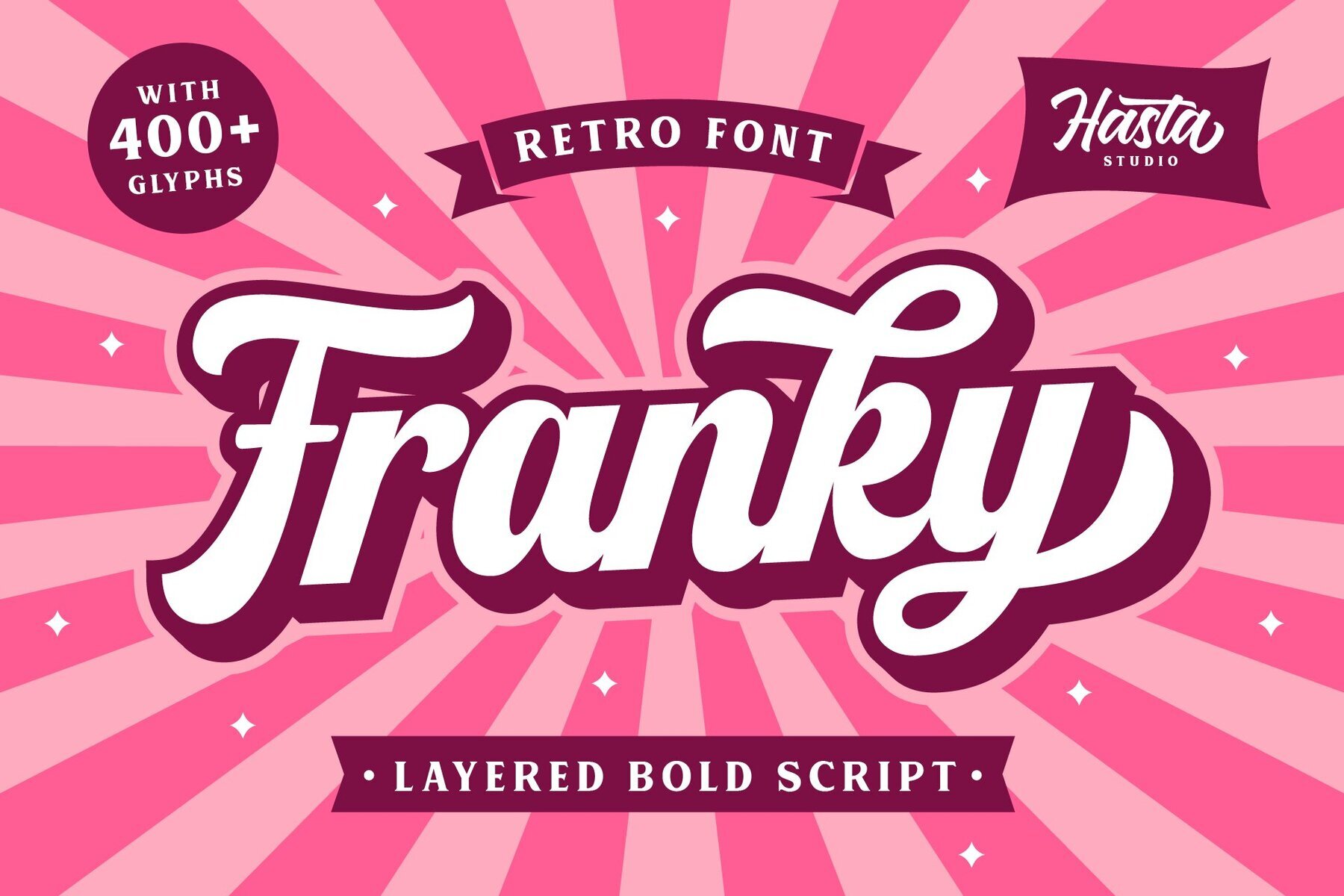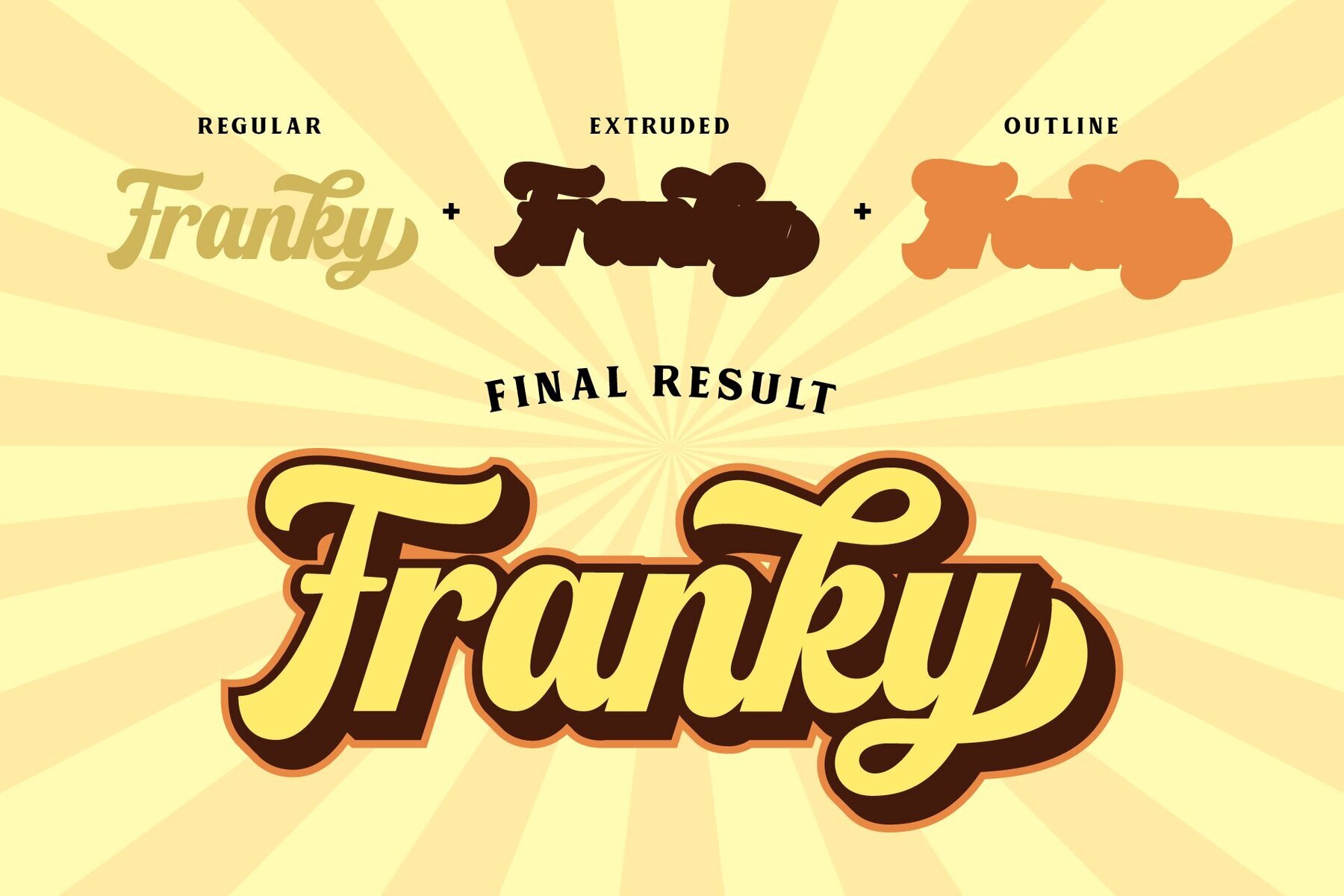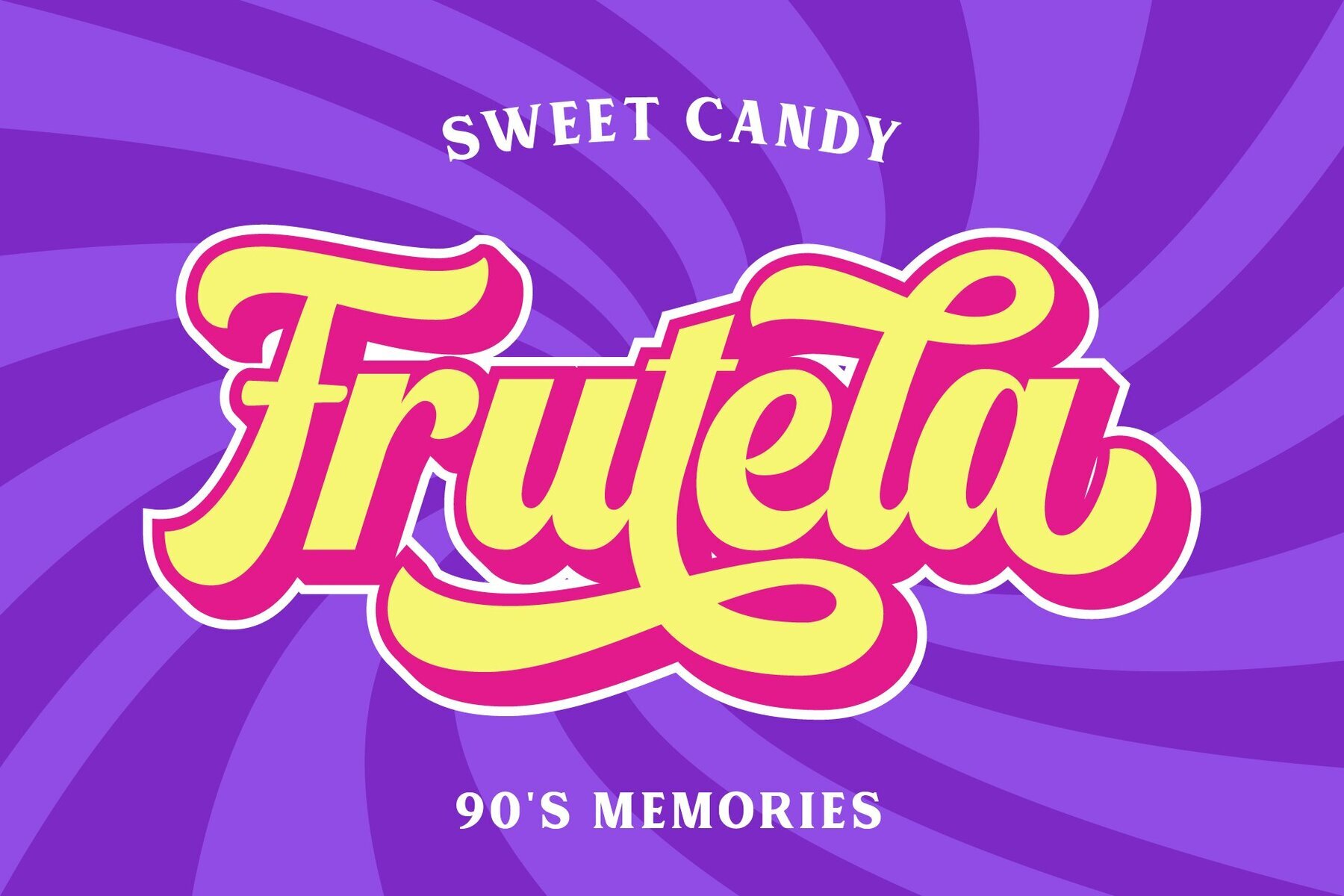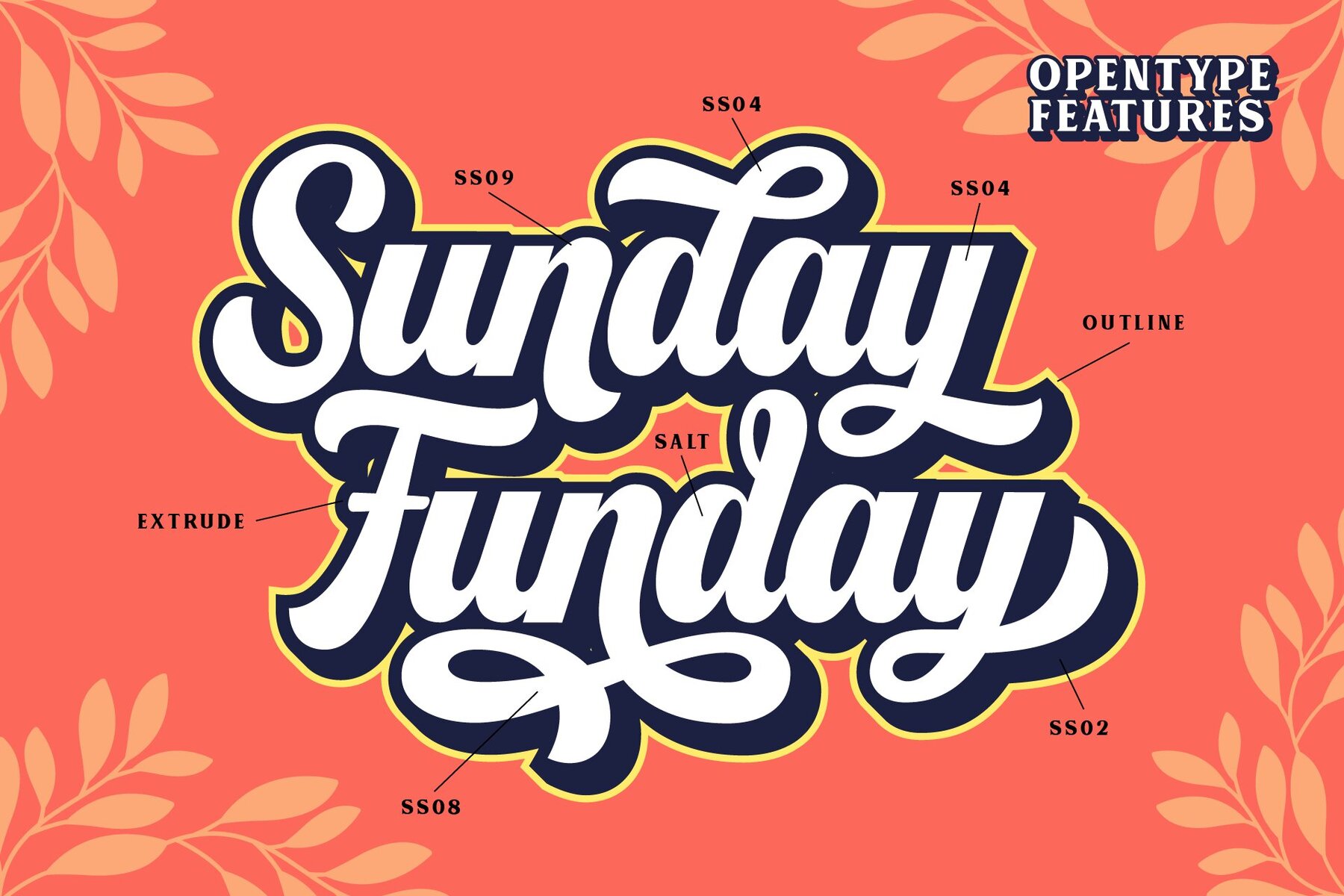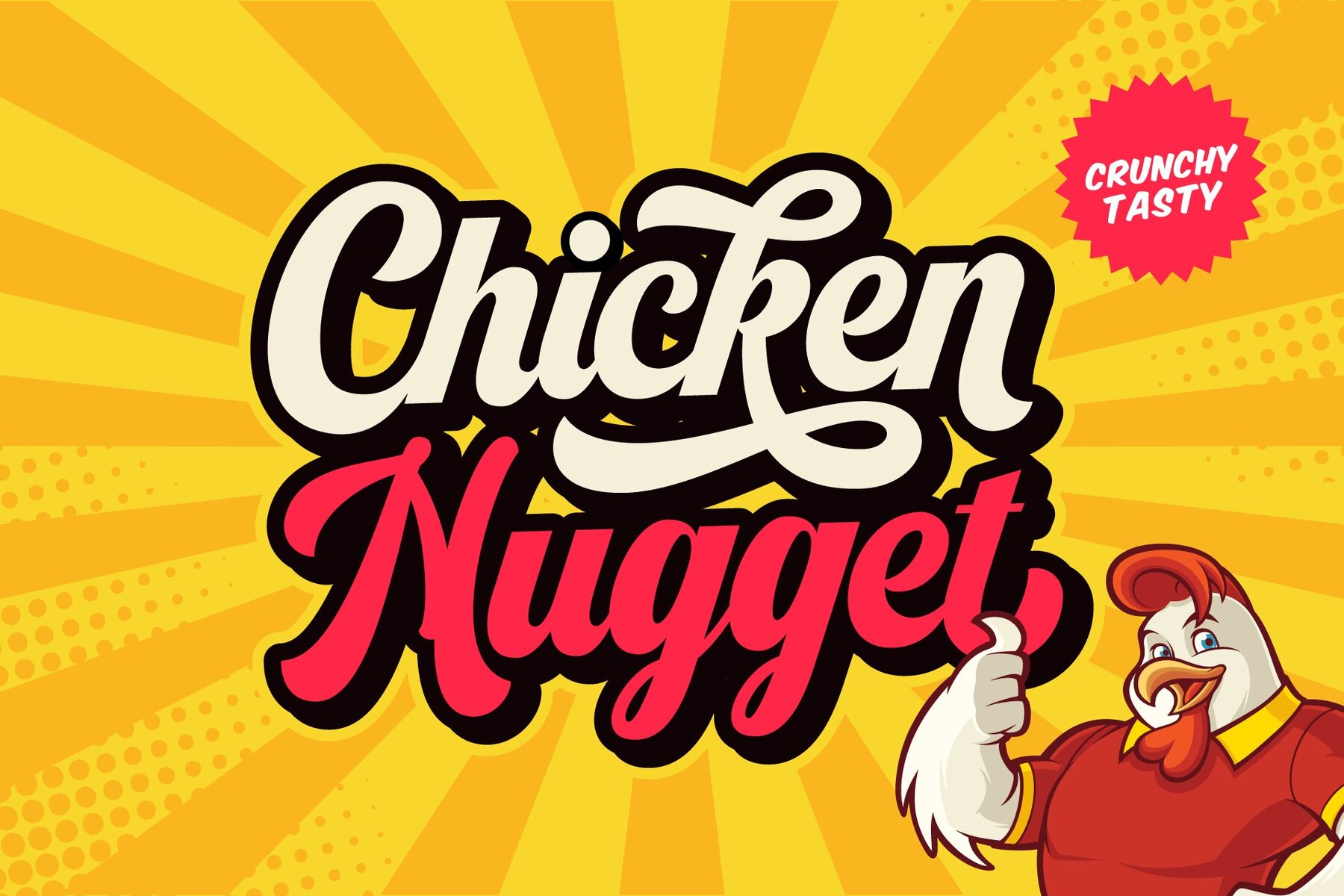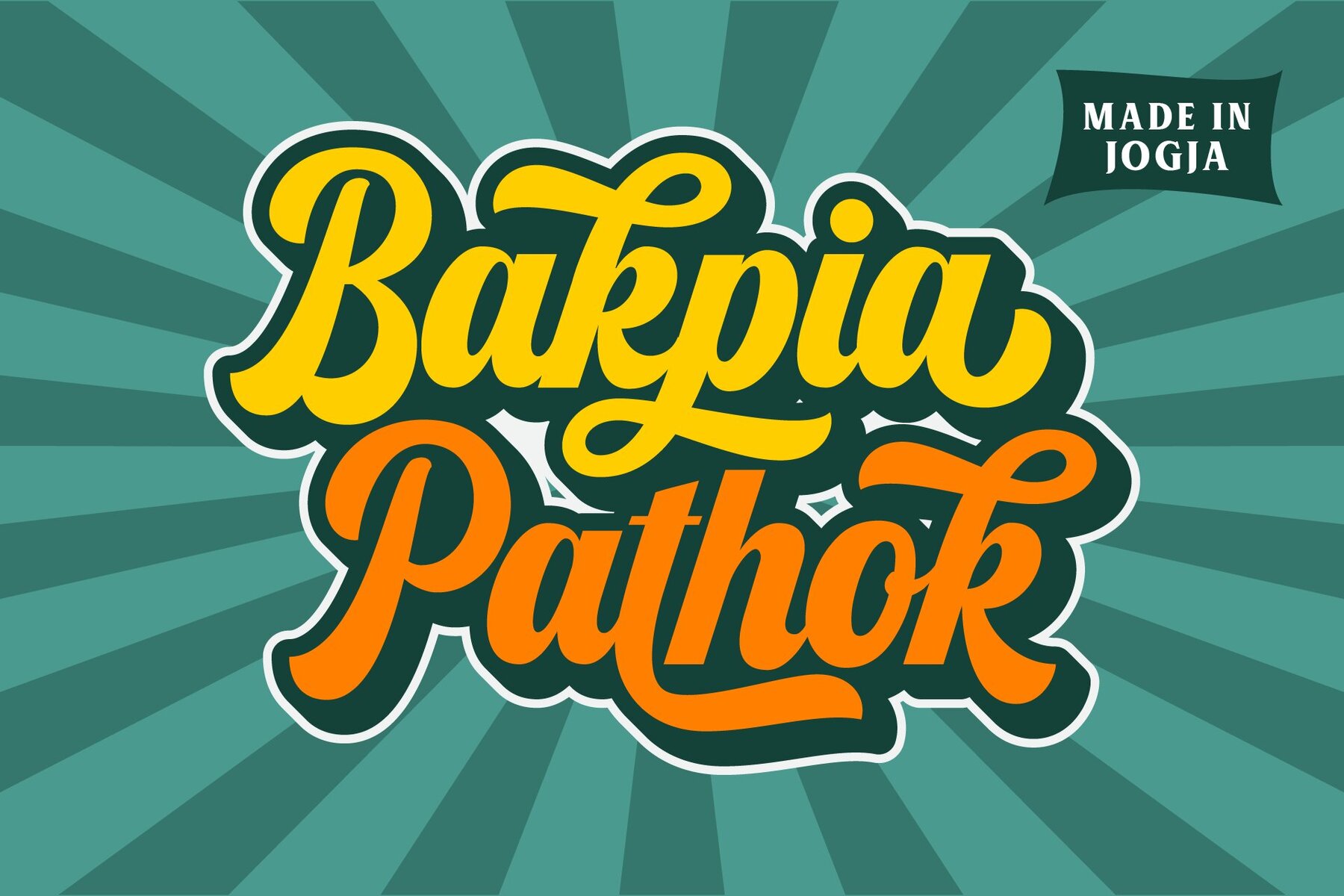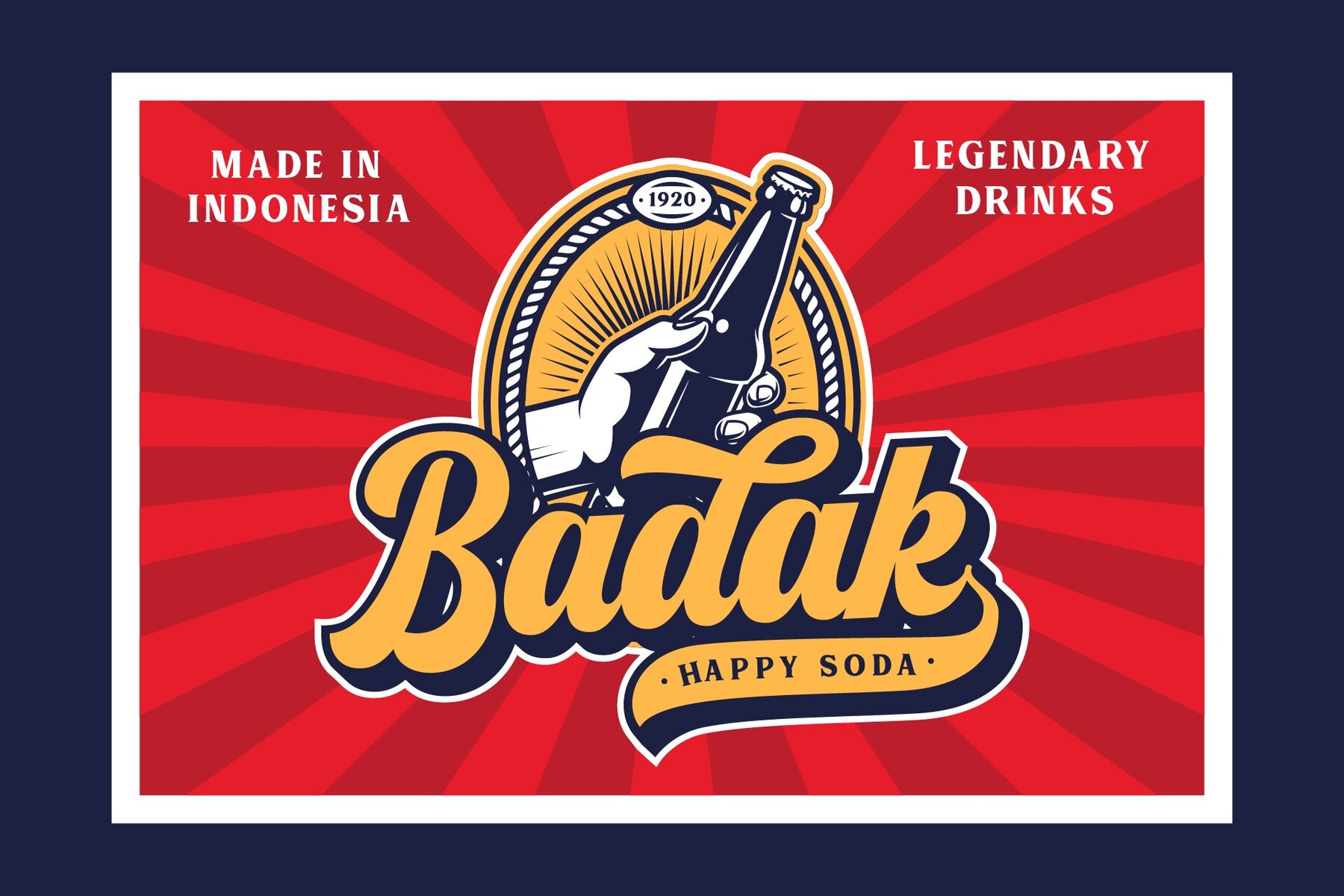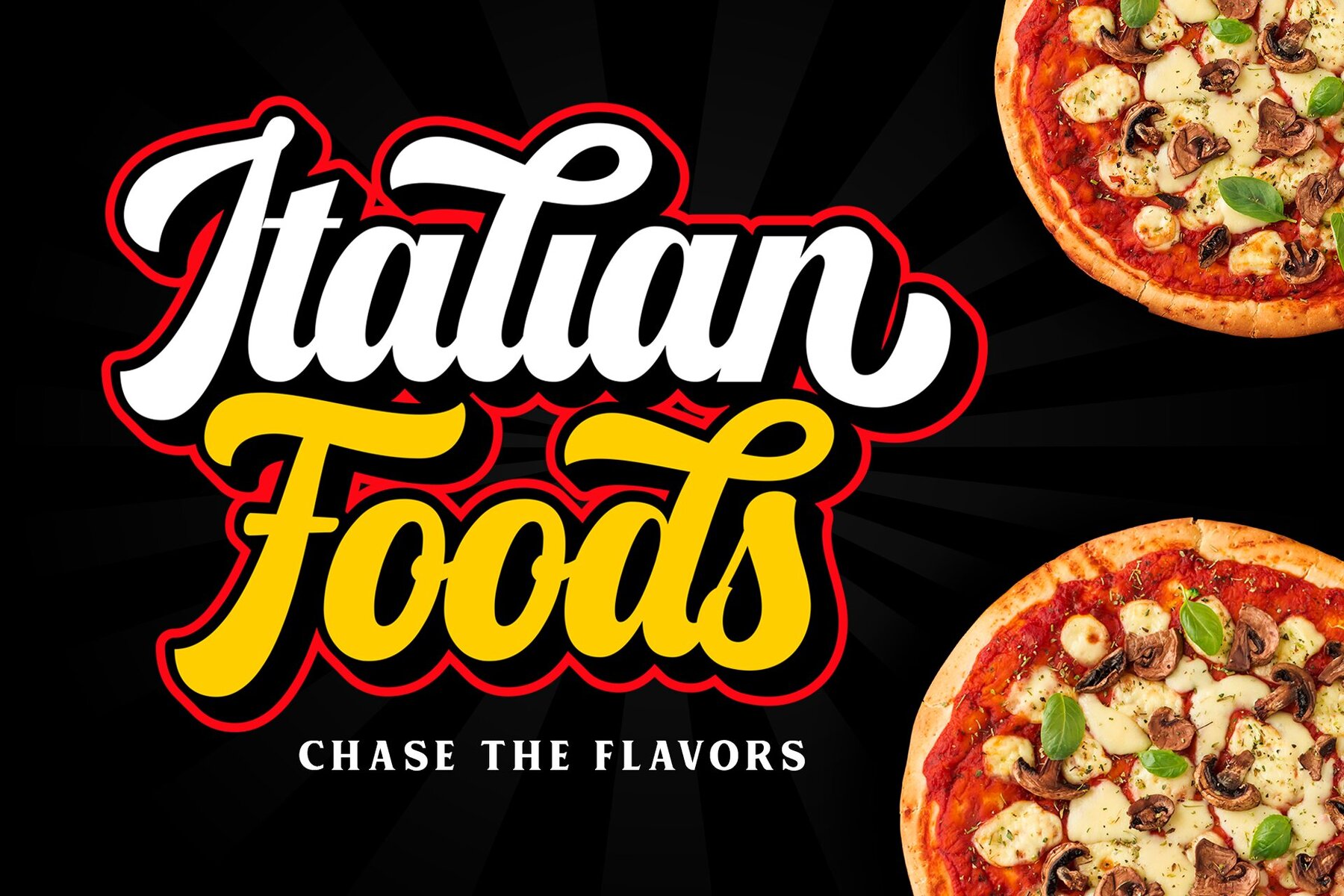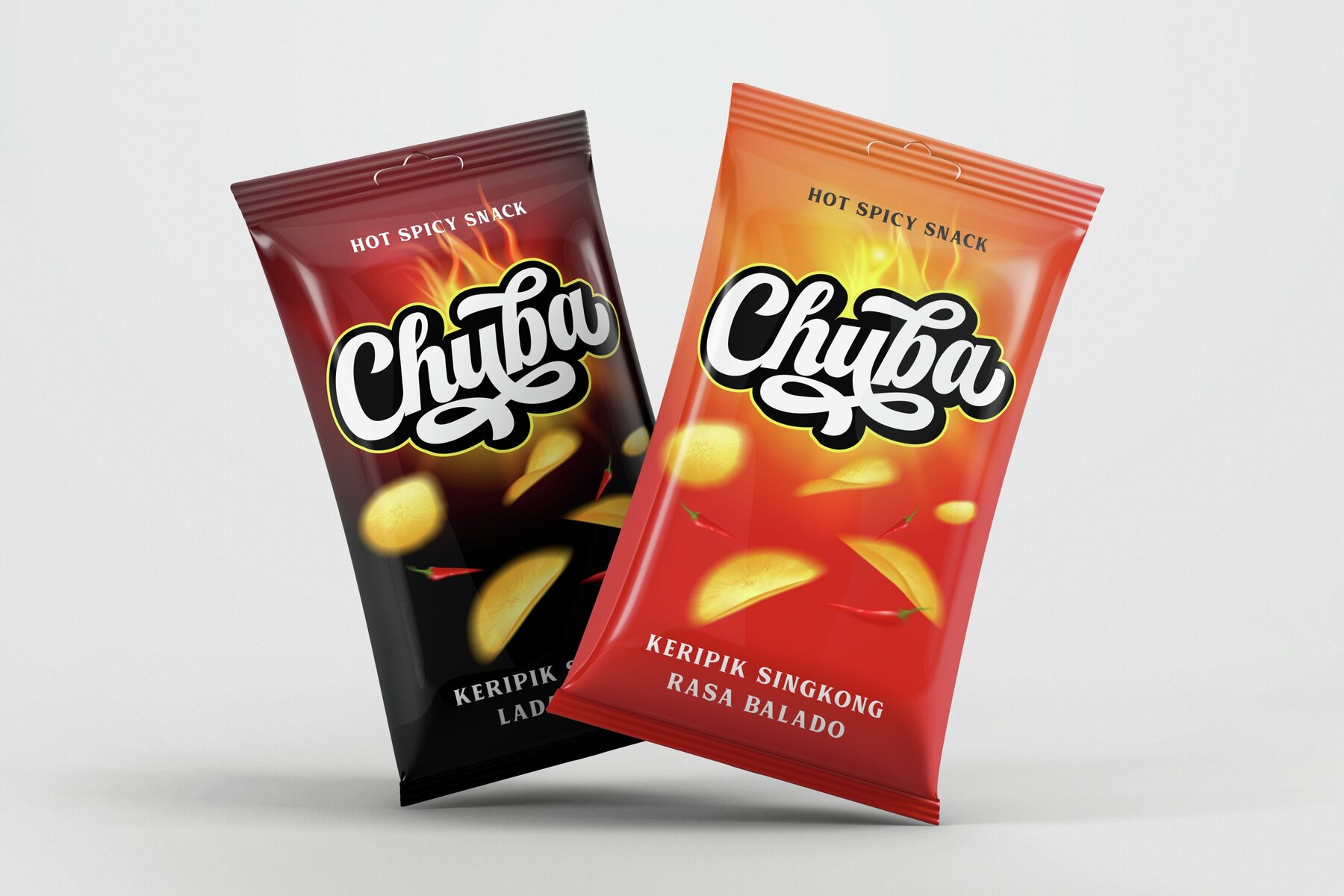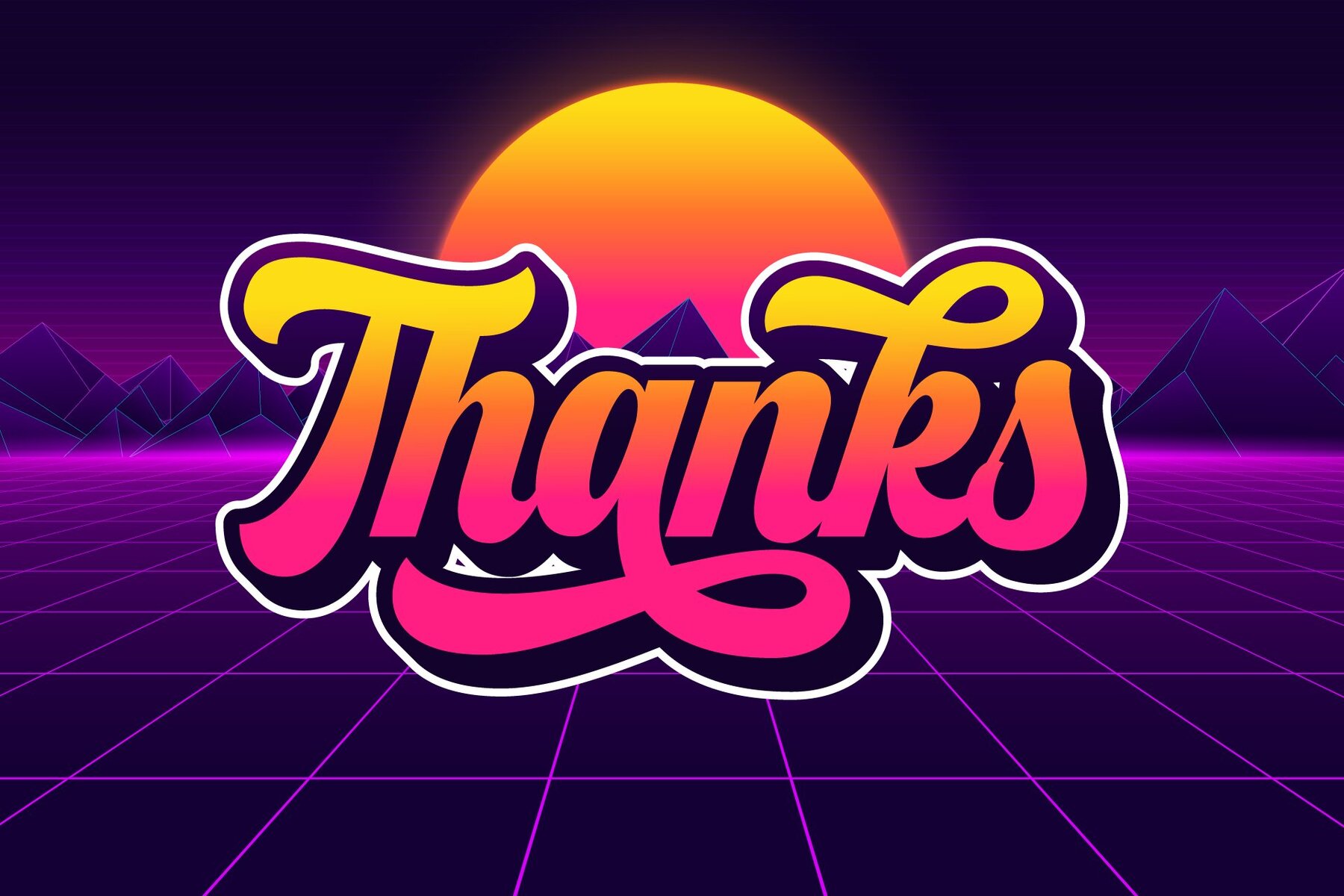
Franky Retro Font
Franky
Franky Extrude
Franky Outline
Franky Retro Script elegantly marries vintage appeal with a modern twist, capturing nostalgia with its graceful curves and fluid strokes. This stylish typeface is perfect for elevating your branding, advertising, or packaging designs by adding a touch of retro charm. Its versatility makes it suitable for both digital and print projects, catering to creative professionals seeking a bold yet refined aesthetic. Bring a timeless elegance to your work with Franky Retro Script and make a lasting impression. Whether you're designing a logo, crafting a digital campaign, or developing eye-catching packaging, this font promises to deliver a unique and memorable impact every time.Franky Retro: A Nostalgic Typeface